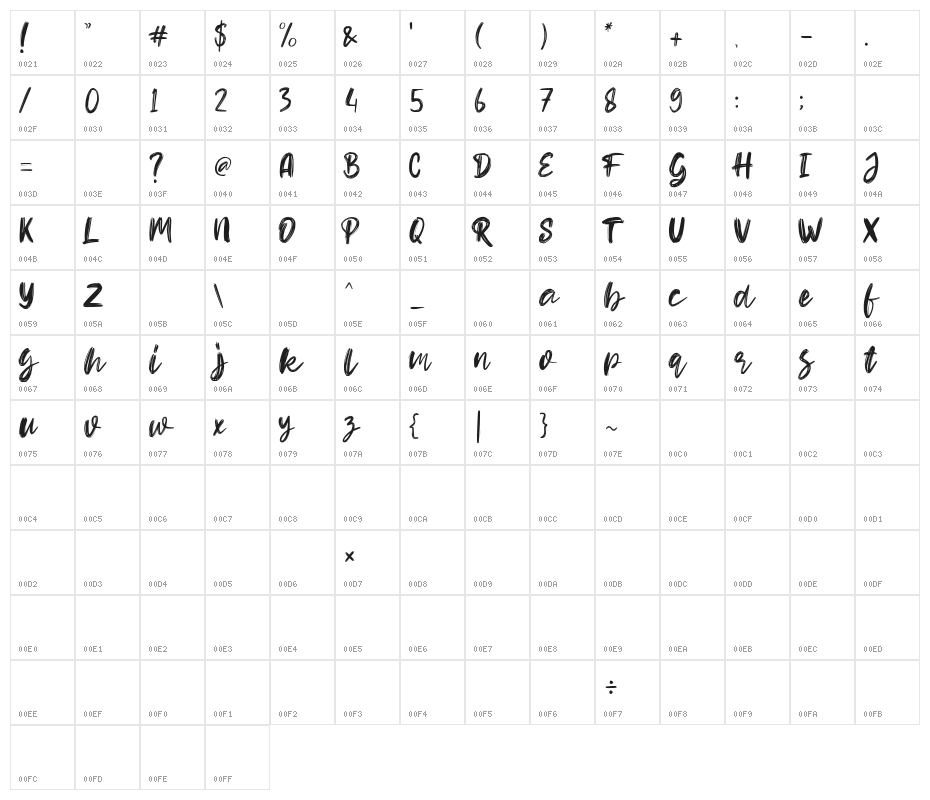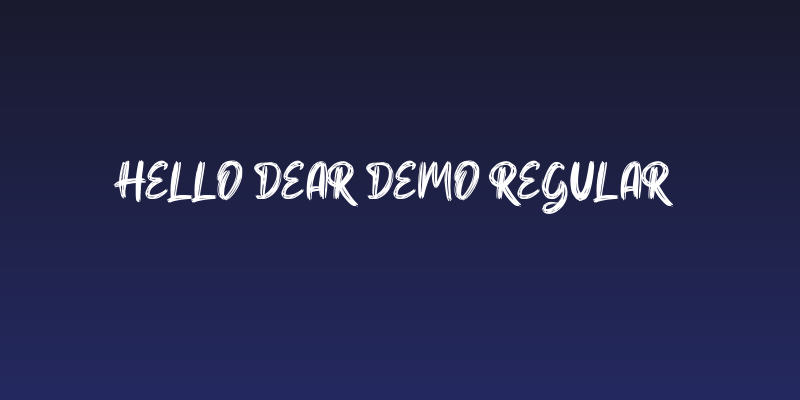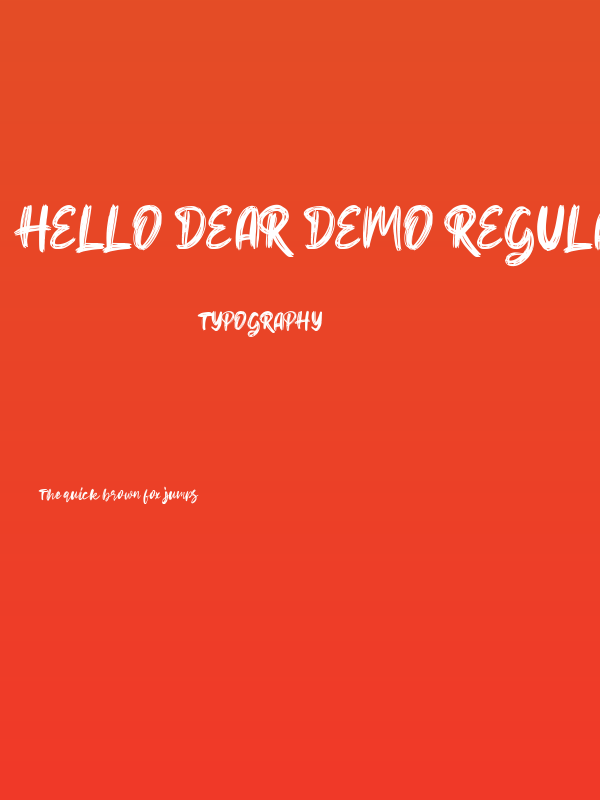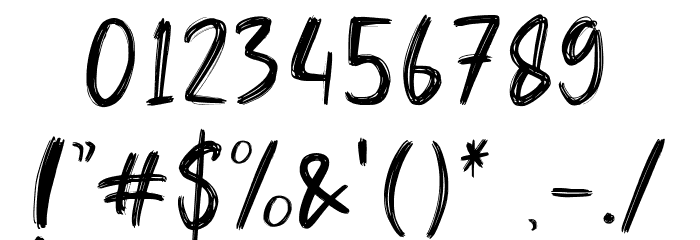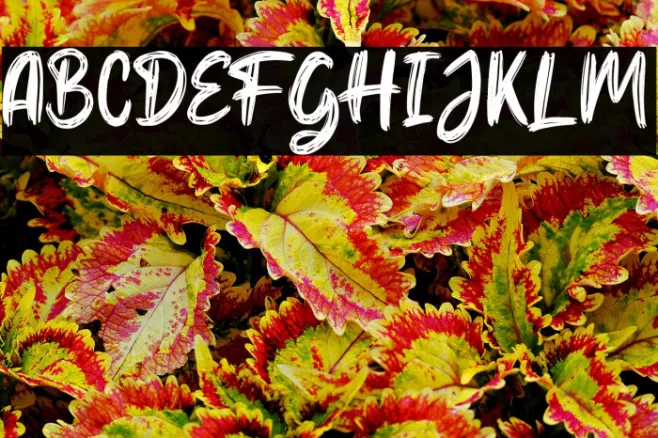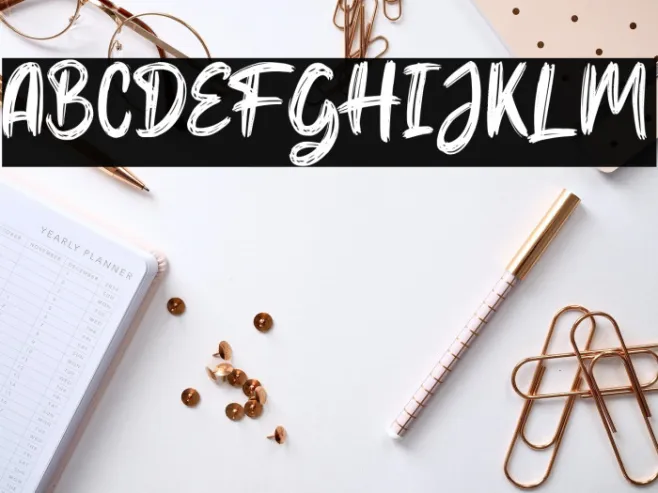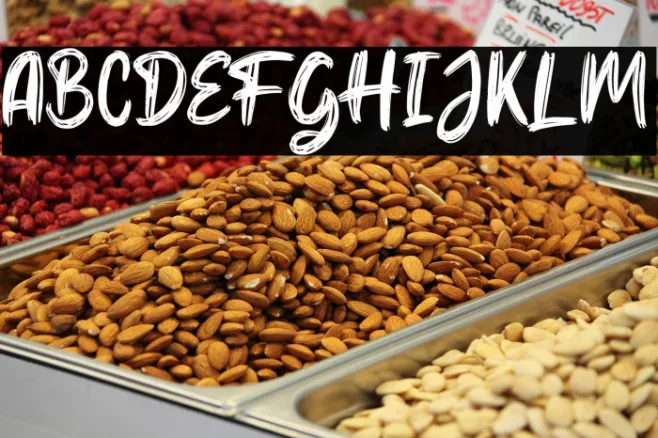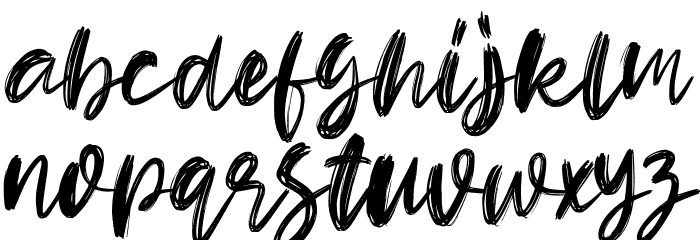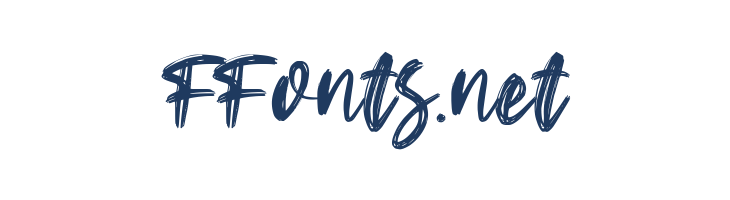
Hello Dear Demo Regular Font
Hello Dear Demo Regular Description
This font features a dynamic and expressive handwritten style, characterized by bold, sweeping strokes that convey a sense of energy and movement. The uppercase letters are bold and slightly irregular, giving them a playful and artistic flair. The lowercase letters maintain a consistent flow, with smooth connections between characters, enhancing the handwritten feel. Numbers and special characters follow the same energetic style, making them stand out with their bold presence. This font's unique brush-like texture adds depth and personality, making it ideal for creative and artistic projects.
| Proposed Projects | Ideal for creative projects such as posters, invitations, branding, and social media graphics where a personal and artistic touch is desired. |